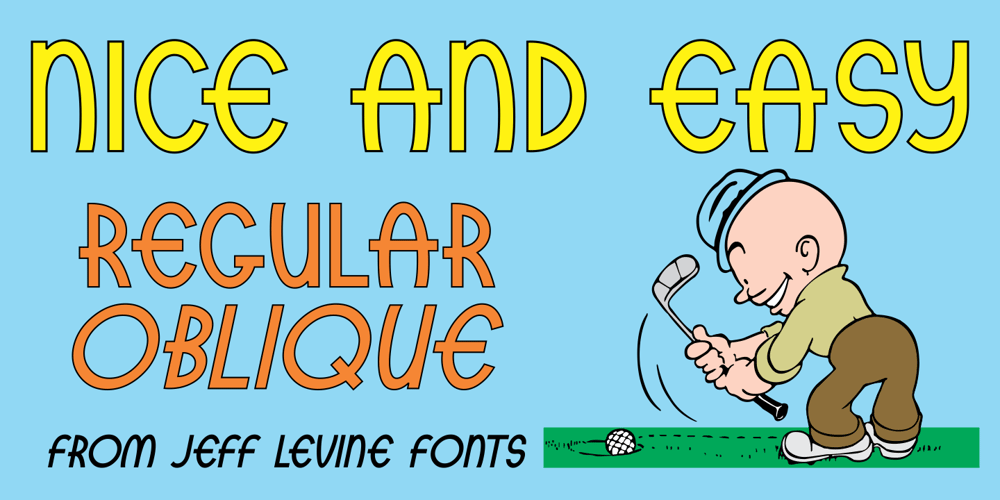
Nice and Easy JNL Font Family was designed by Jeff Levine and published by Jeff Levine. Nice and Easy JNL contains 2 styles and family package options. The hand lettered title and credits for the 1937 film “Easy Living” (starring Jean Arthur and Edward Arnold) featured playful, casual Art Deco sans serif lettering.This became the working model for Nice and Easy JNL, which is available in both regular and oblique versions.